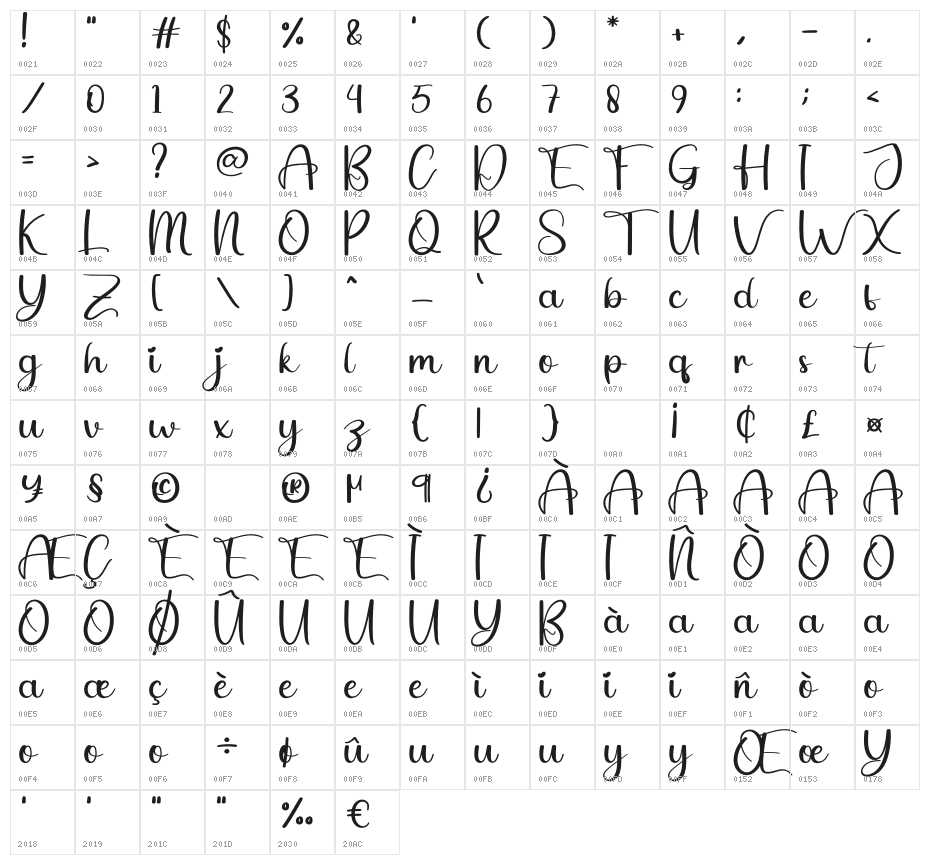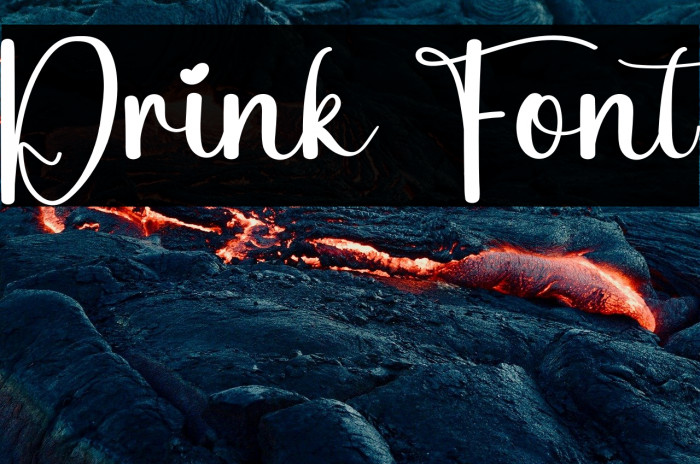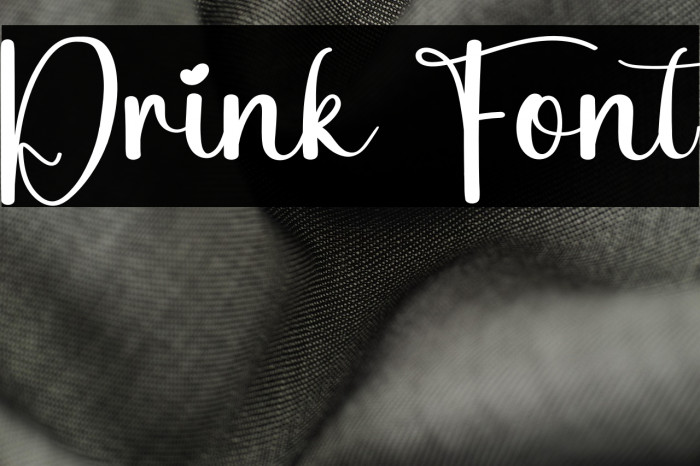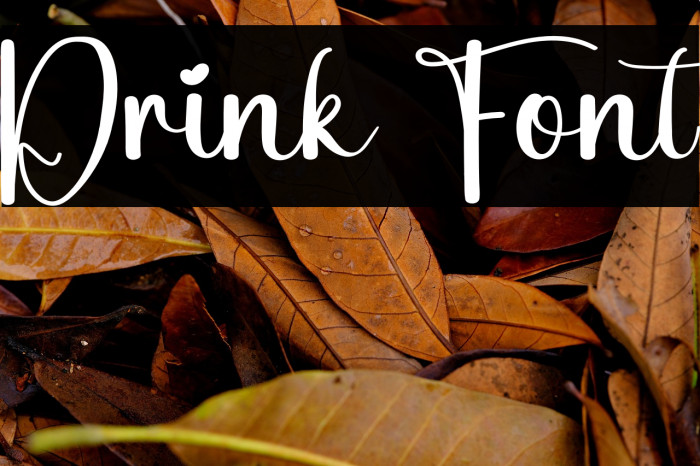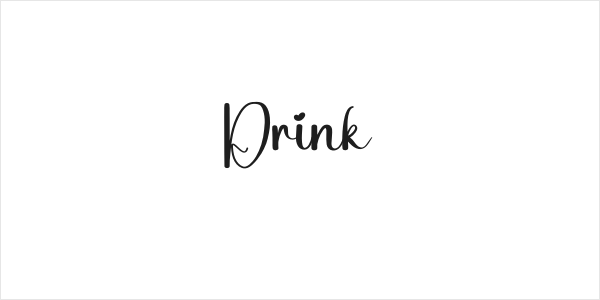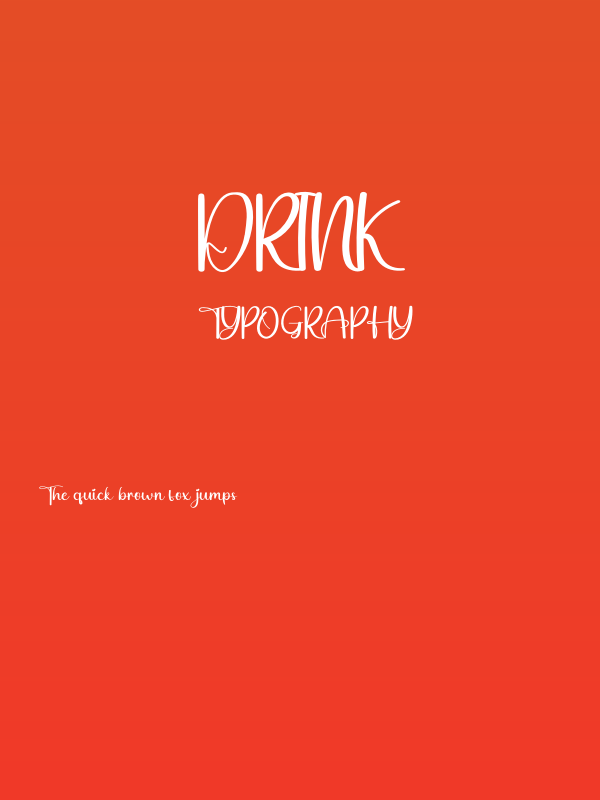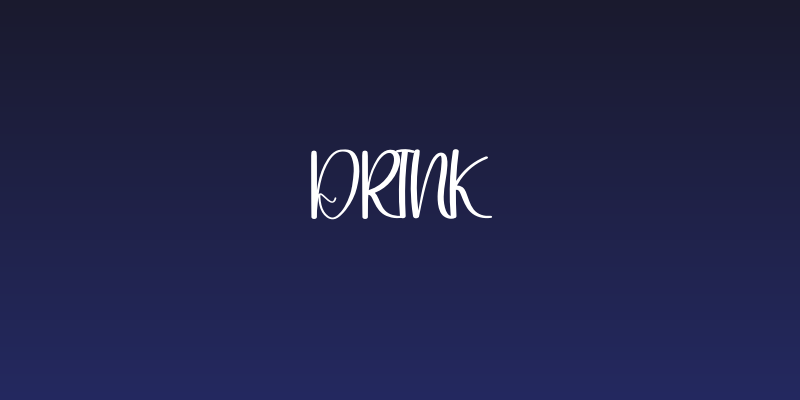
Drink Font
Drink Description
This font features a playful and whimsical script style, characterized by its fluid and flowing letterforms. The uppercase letters are bold and expressive, with unique loops and swirls that add a touch of elegance. The lowercase letters maintain a consistent style, with smooth curves and a slightly informal appearance. The numbers are clear and easy to read, with a slight slant that complements the overall design. Special characters are creatively integrated, maintaining the font's lively and dynamic feel. This font is perfect for projects that require a personal and artistic touch.
| Use Case | Logos, Invitations, Creative projects |
| Proposed Projects | Ideal for wedding invitations, greeting cards, branding, and creative projects that require a personal touch. |